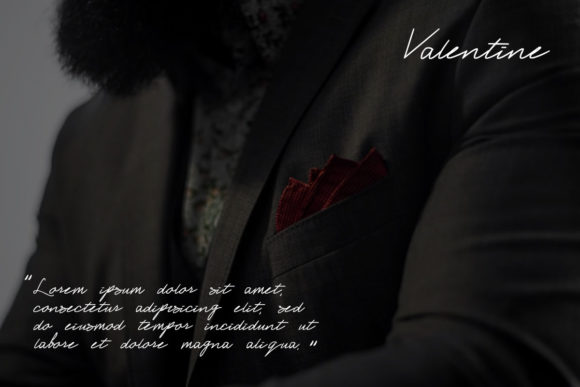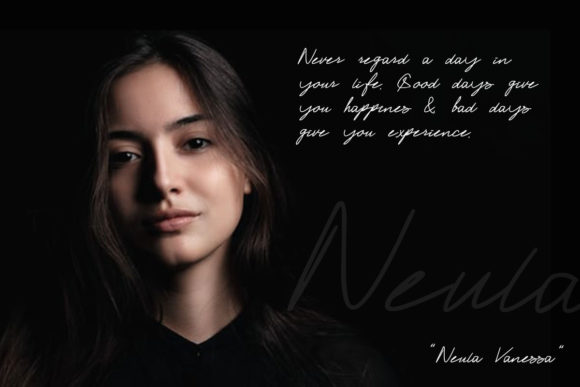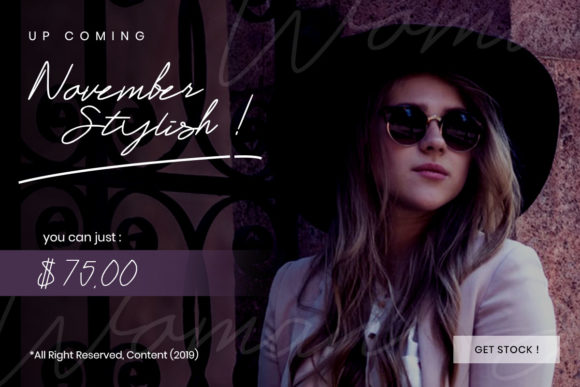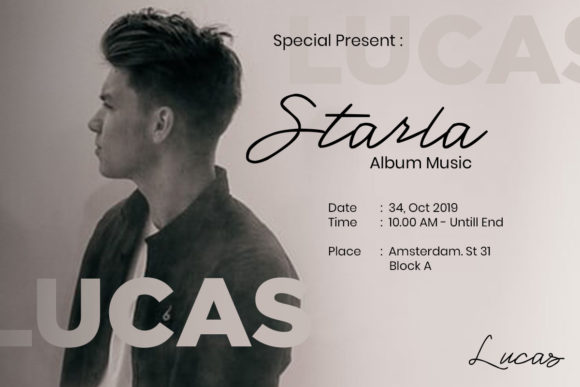
HomeScript FontsFuture Font Script Fonts Future Font FacebookXPinterestWhatsApp Future Font Poster 2 Future Font Poster 3 Future Font Poster 4 Future Font Poster 5 About Future Font Future is a stunning script that transcends time. Get inspired by its timeless style! DOWNLOAD NOW People also explored Smilles Script Font Golden Palace Font Lonely Font Kiaspora Font Deporia Font Wincent Extra Black Font Funny Snowflake Font Brasta Font Fuel 284 0 TagsFuture Font Previous articleTheodore FontNext articleEfothyro Font LEAVE A REPLY Cancel reply Comment: Please enter your comment! Name:* Please enter your name here Email:* You have entered an incorrect email address! Please enter your email address here Website: Save my name, email, and website in this browser for the next time I comment. Personal Use Free Mini Story Personal Use Free Read more about this font Einstaint Personal Use Free Read more about this font Krabuler Personal Use Free Read more about this font Milda Personal Use Free Read more about this font BLOG 5 Fonts That Will Dominate Design Trends in 2026 5 Fonts for 2026 That Will Dominate Design Trends Typography plays a critical role in visual communication, and as we look ahead to 2026, it’s... Best Fonts for T-Shirt Design – Top 2025 Picks To increase your work productivity, choose the most readable fonts. Free vs Paid Fonts: Why Investing in Premium Fonts Is Worth It